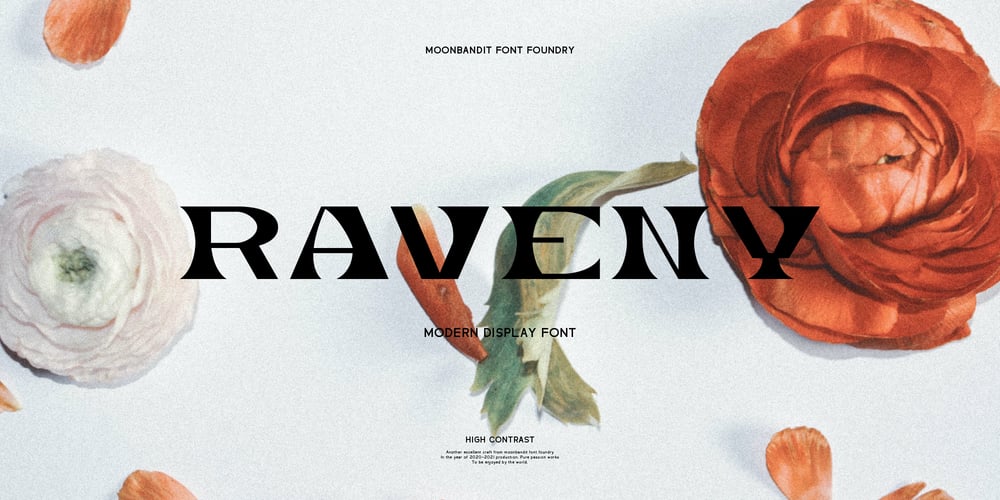
MBF Raveny Font Family was designed by Bramaji Dipa Manggala and published by Moonbandit. MBF Raveny contains 1 styles and family package options. Raveny is a high contrast modern display font by moonbandit, This typeface is a unicase font, meaning that the uppercase and lowercase has the same height. Raveny also comes with multilingual support and several alternates for you to explore.